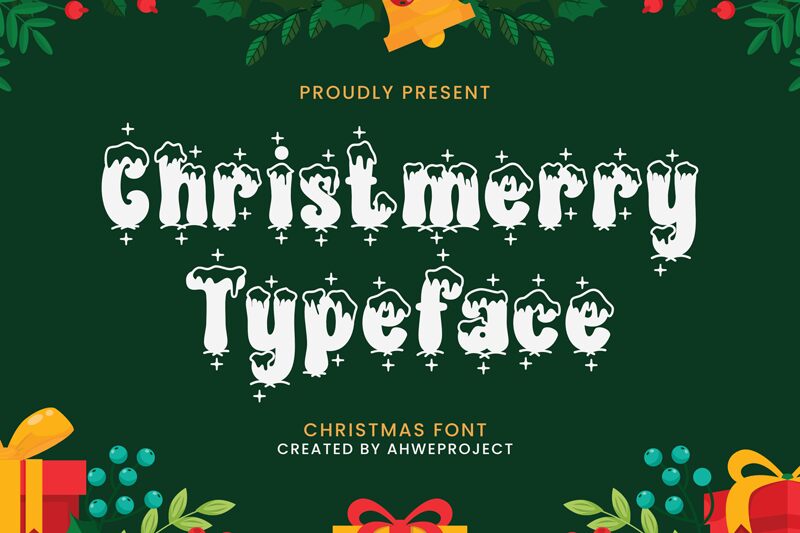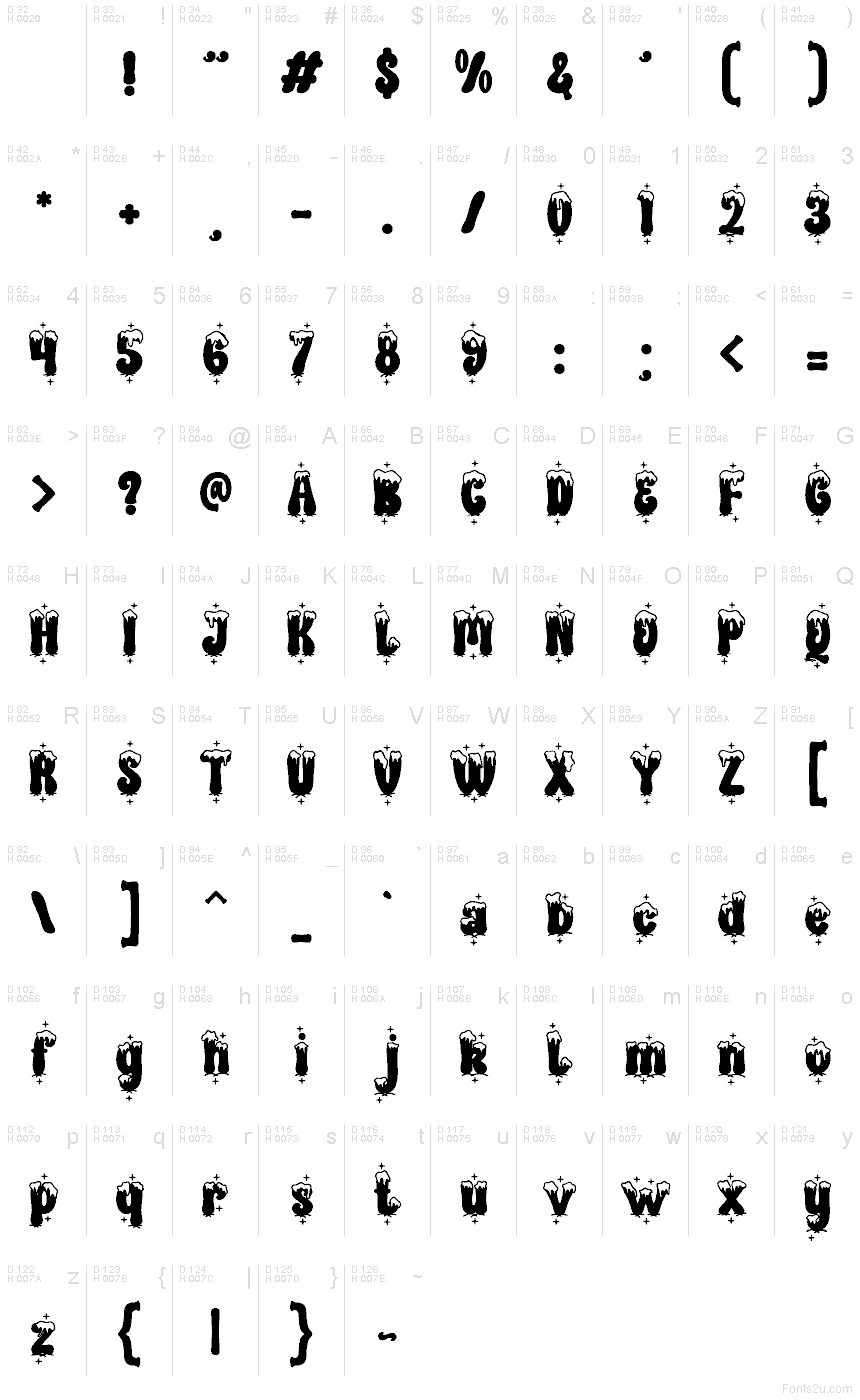
Christmerry font by Ahweproject is a free Christmas holiday font that looks like it’s been dipped in fresh snow and sprinkled with twinkling stars. The chunky, rounded letters feel cozy and playful, while the drippy white caps and little spark shapes give it that magical, just-lit-the-tree vibe. It’s bold, legible, and full of character-great when you want your seasonal designs to shout “festive” at a glance.
Using Christmerry, this free font shines on gift tags, greeting cards, children’s activity sheets, party invites, social media countdown posts, and cheerful newsletter headers. The dense, inky fills and snowy tops hold up well at larger sizes, so let it take center stage and pair it with a simple sans serif for body text. Keep the color palette bright and warm-think reds, golds, and deep greens-to make the whimsical shapes really pop.